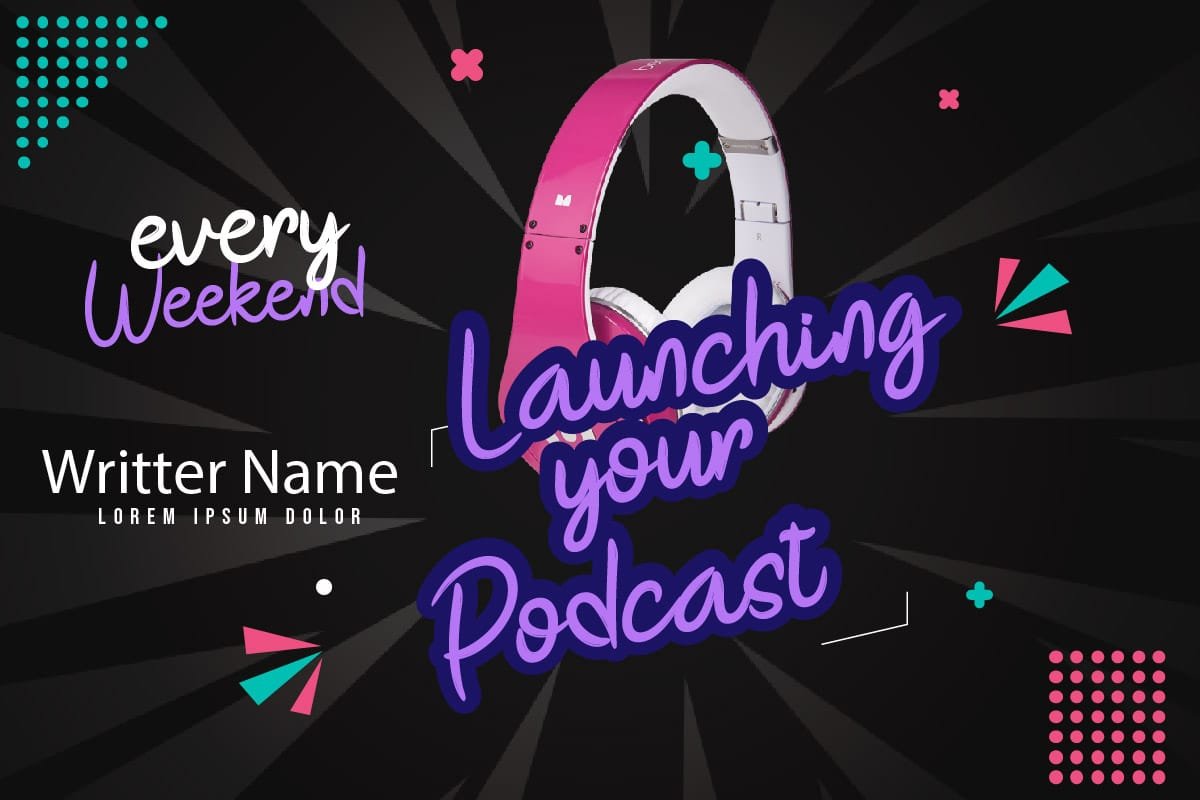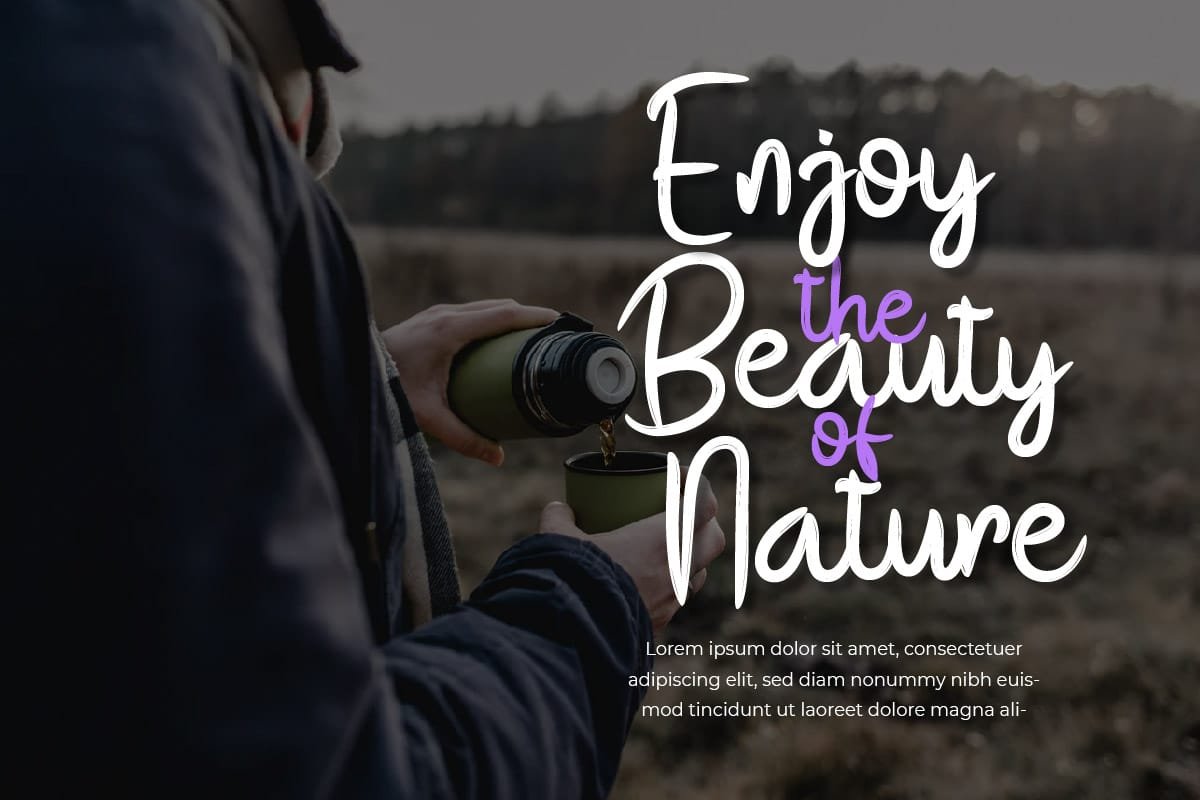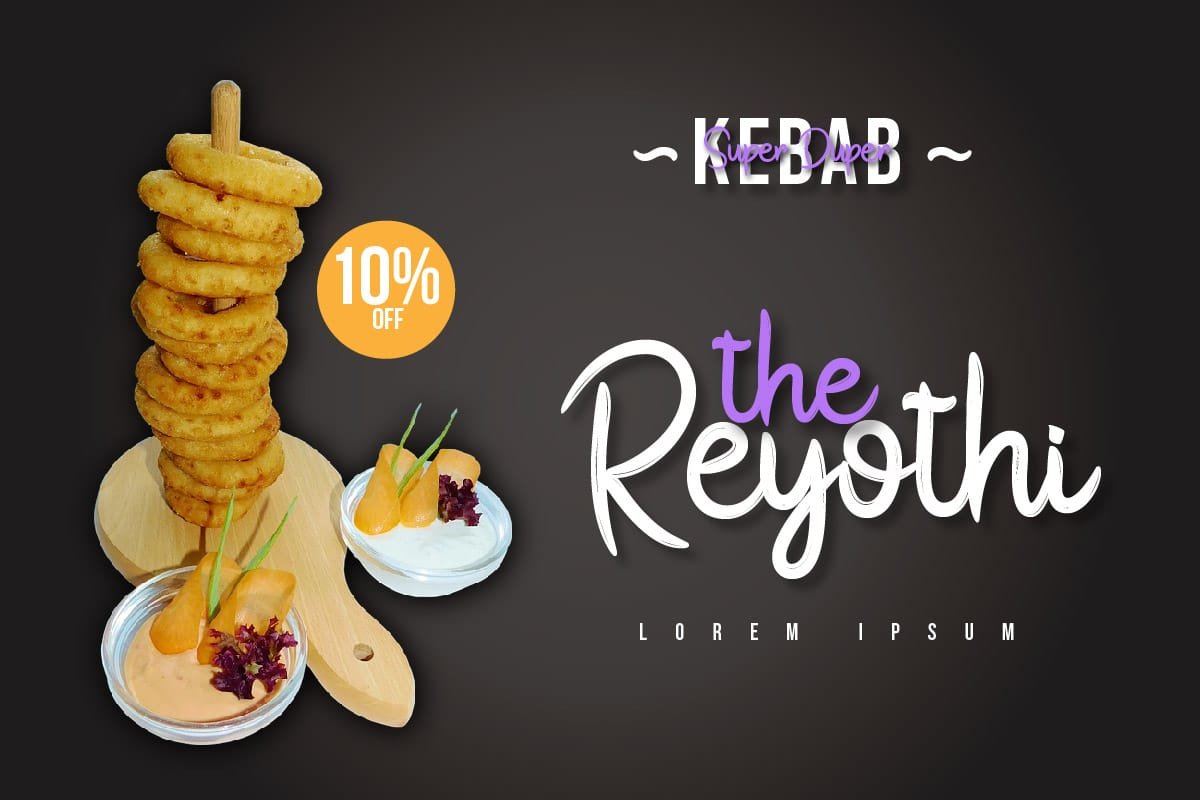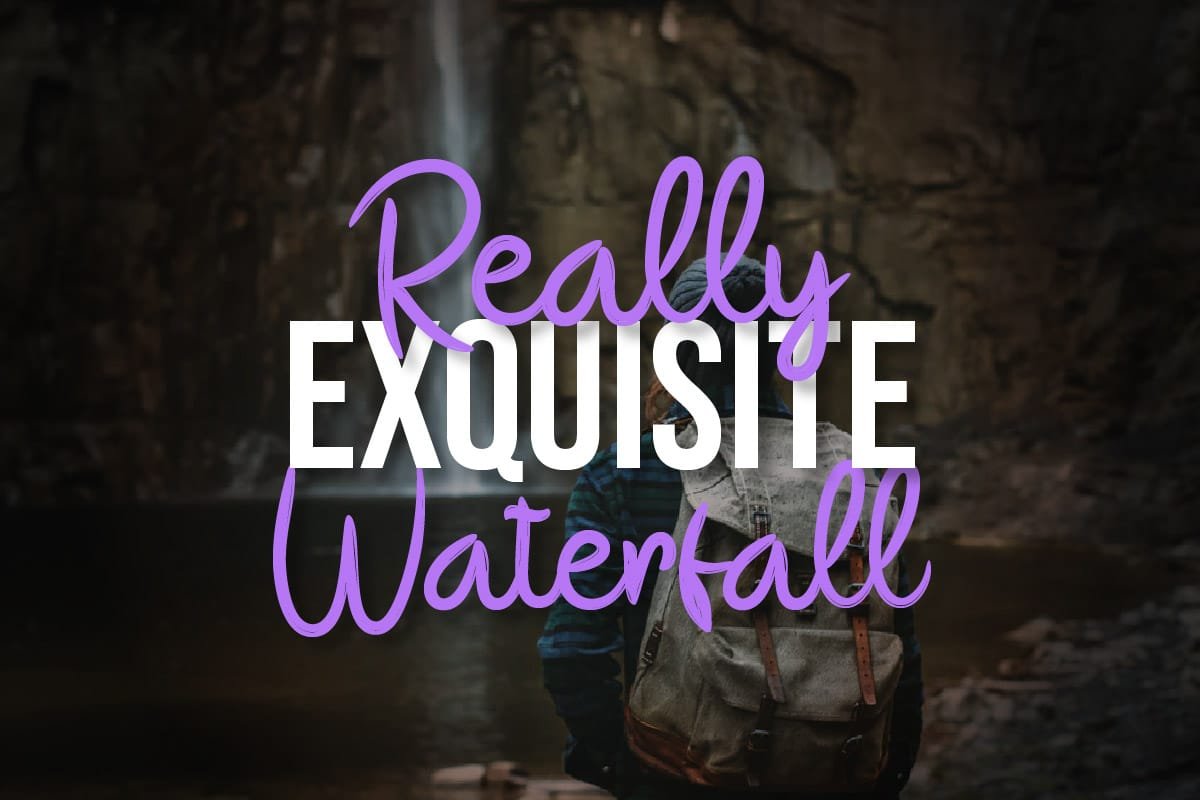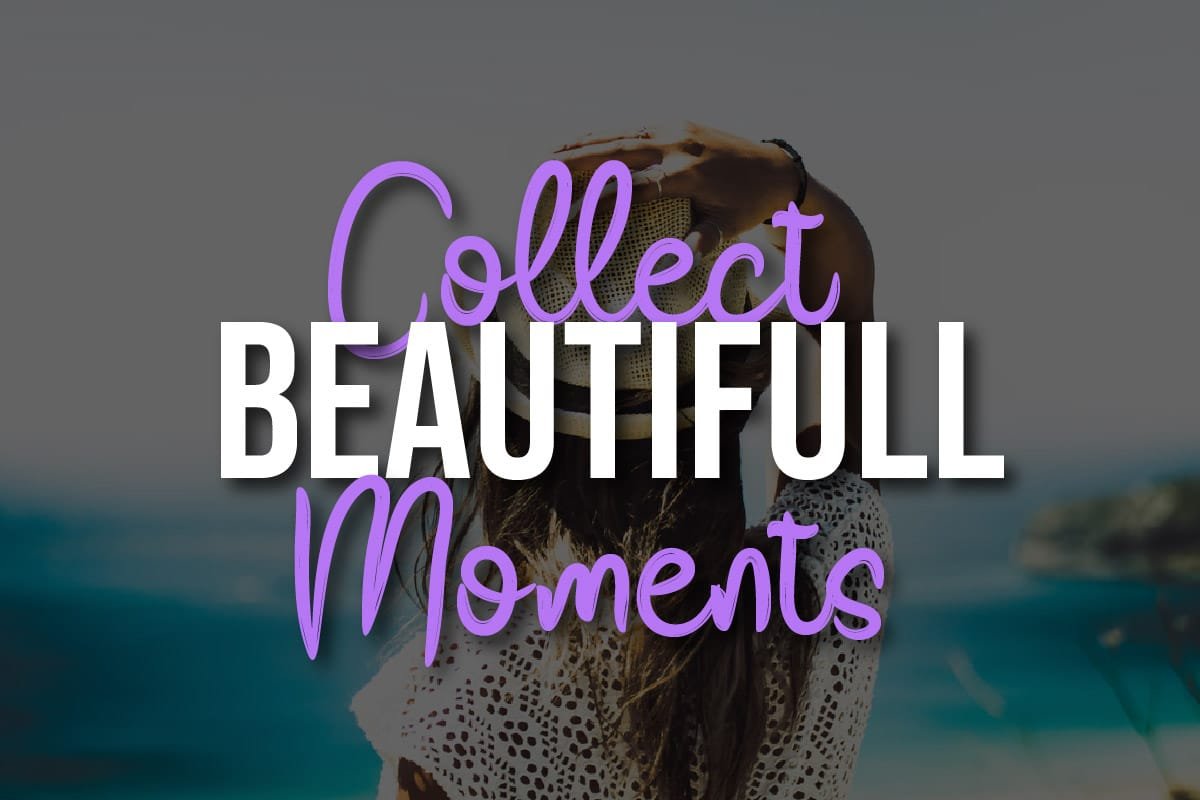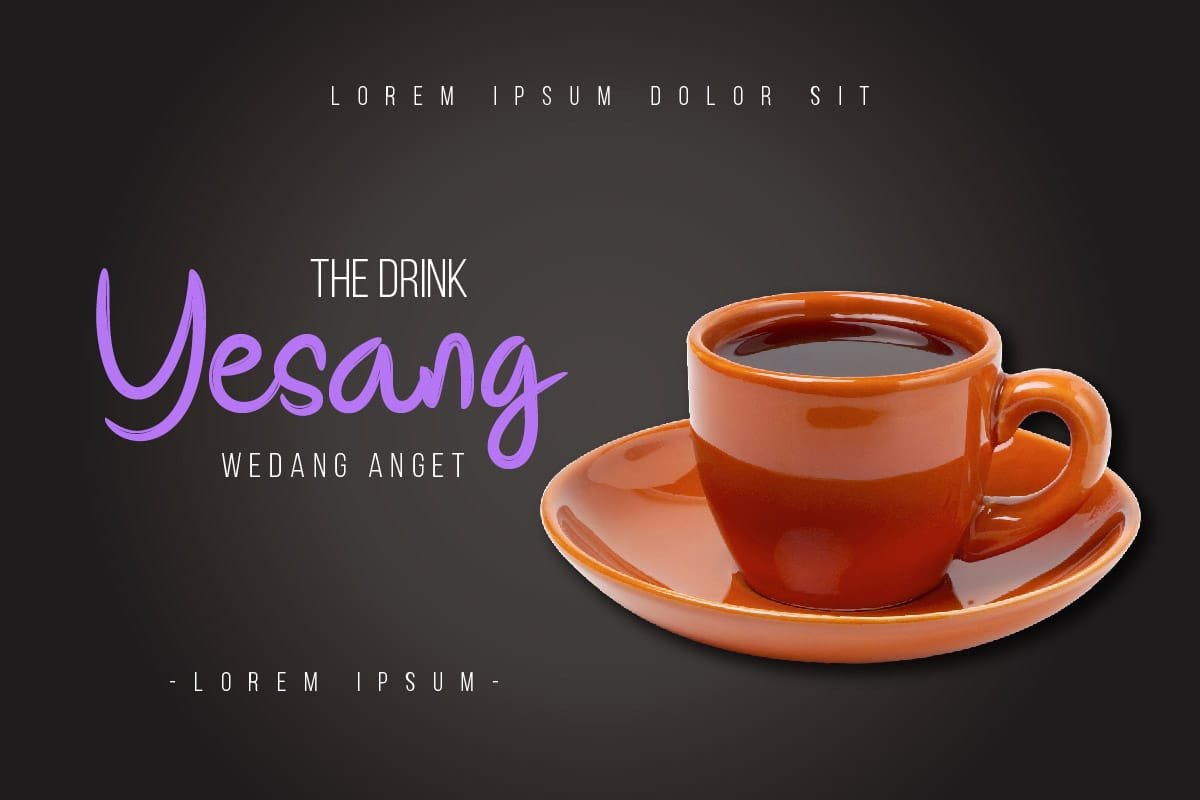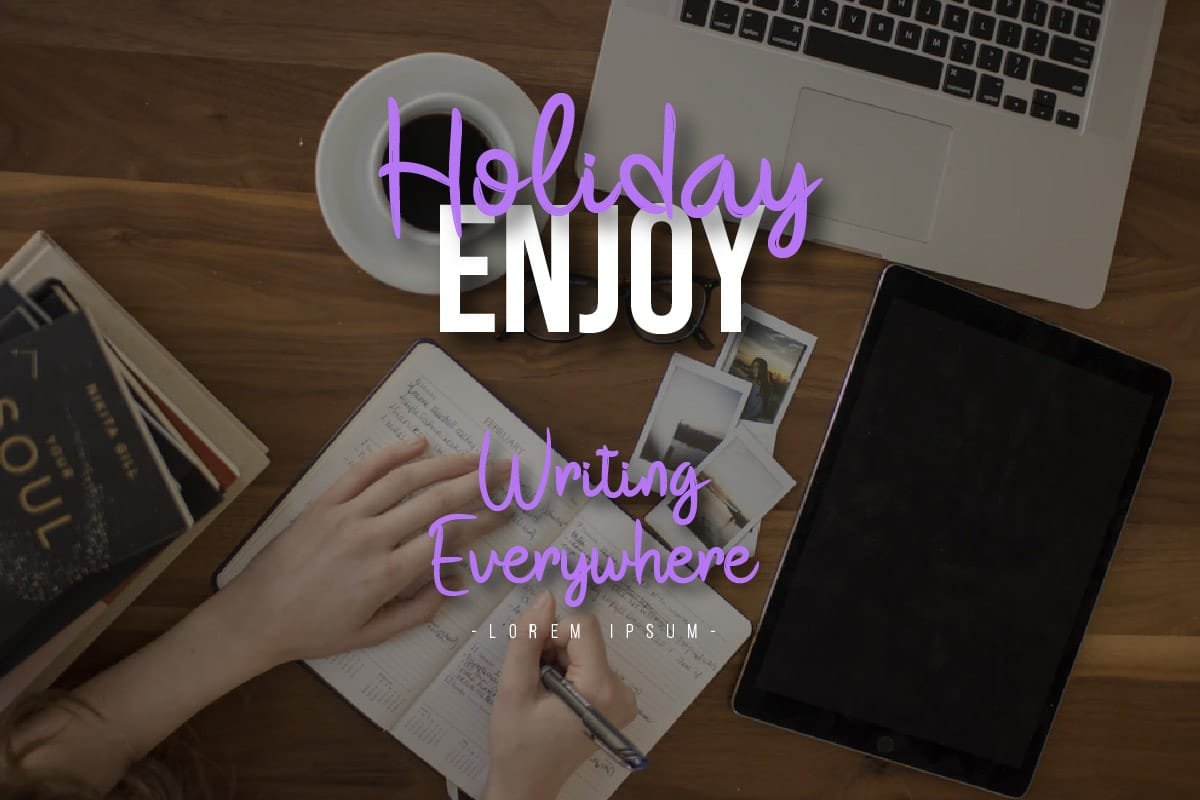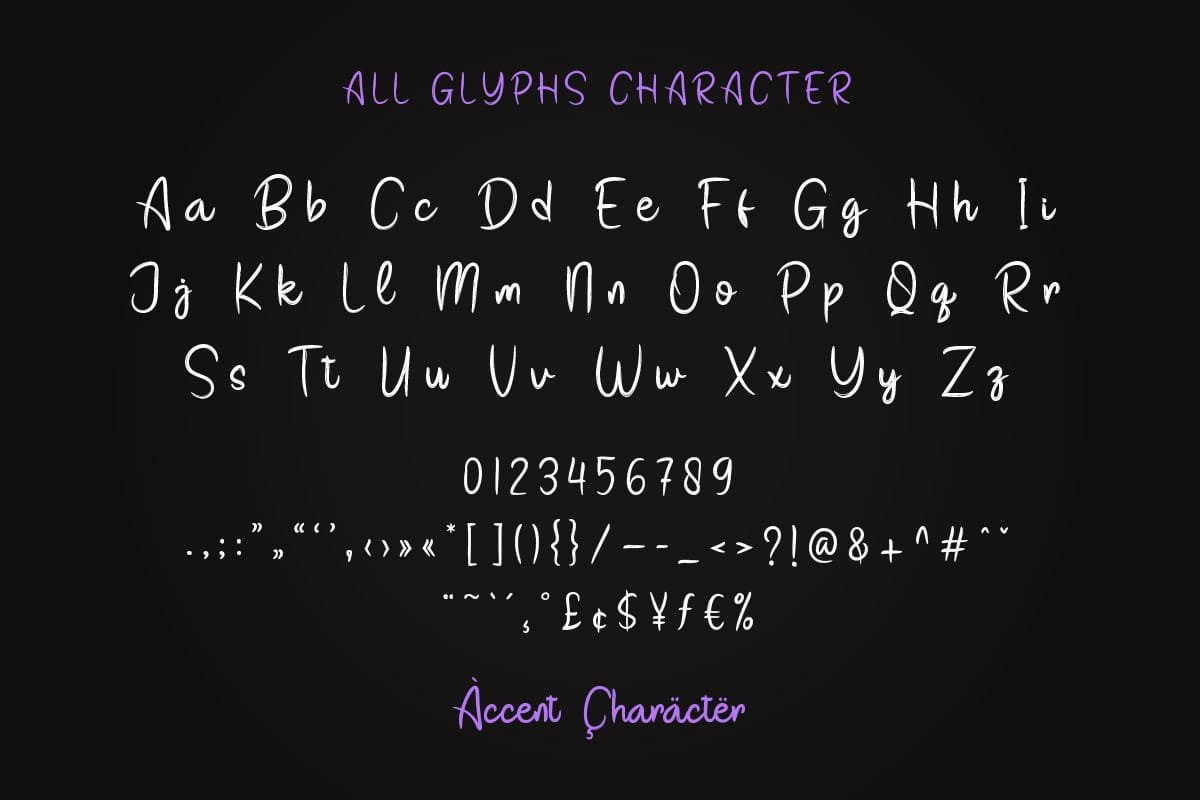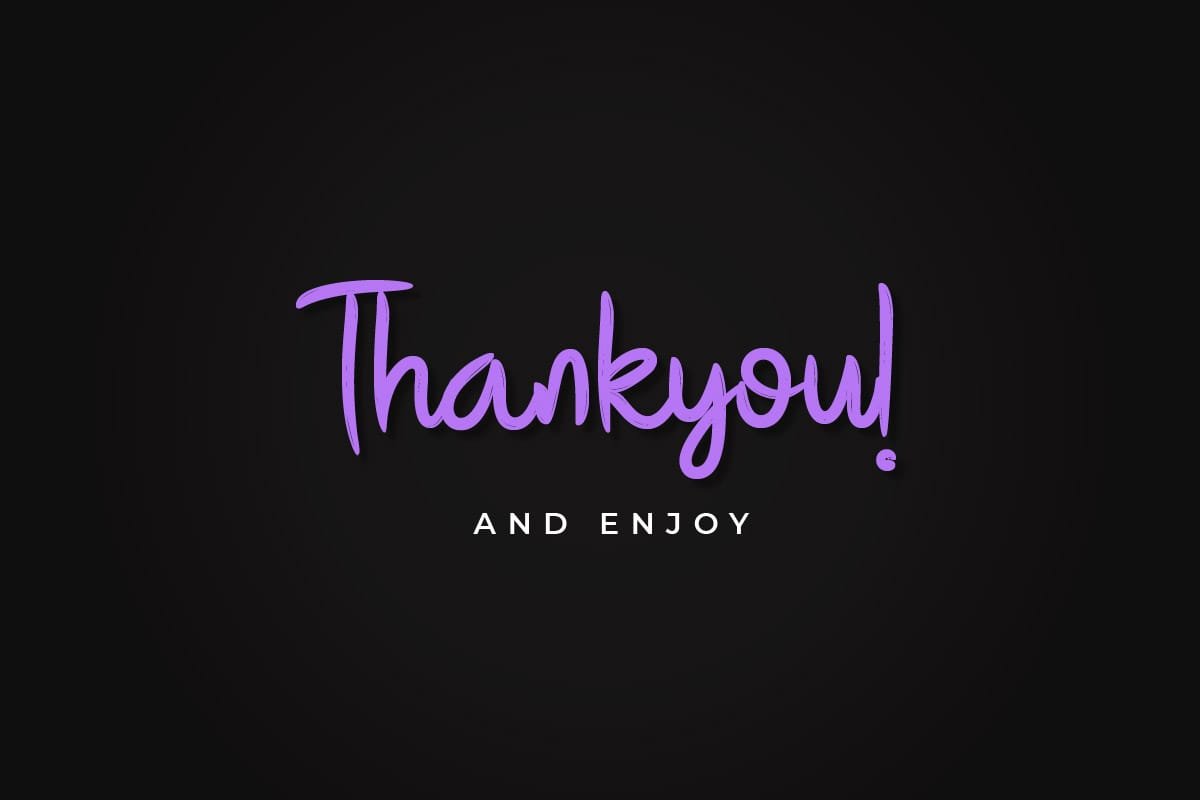
Let the festivities begin with Festival – Brush Handwritten Font! This vibrant and dynamic typeface captures the spirit of celebration with its energetic strokes and playful design. Perfect for projects that require a dash of joy and excitement, Festival is ideal for creating lively event posters, cheerful greeting cards, or vibrant social media graphics. With Festival, every design becomes a celebration, spreading happiness and positivity wherever it goes. Get ready to ignite the party spirit and bring your designs to life with Festival – the font that’s always ready to celebrate!